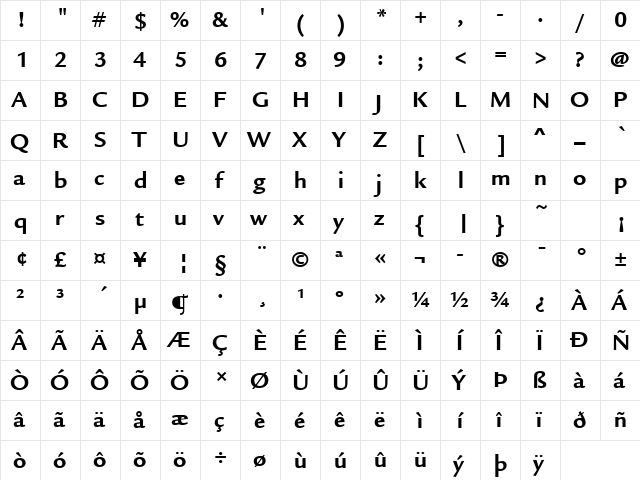
Legacy Sans ITC TT Bold
Design Context for Legacy Sans ITC TT Typeface
Legacy Sans ITC TT takes a measured approach to typography — its balanced proportions and neutral character make it a reliable workhorse for both digital and print work. Its bold stroke weight gives it real presence on the page.